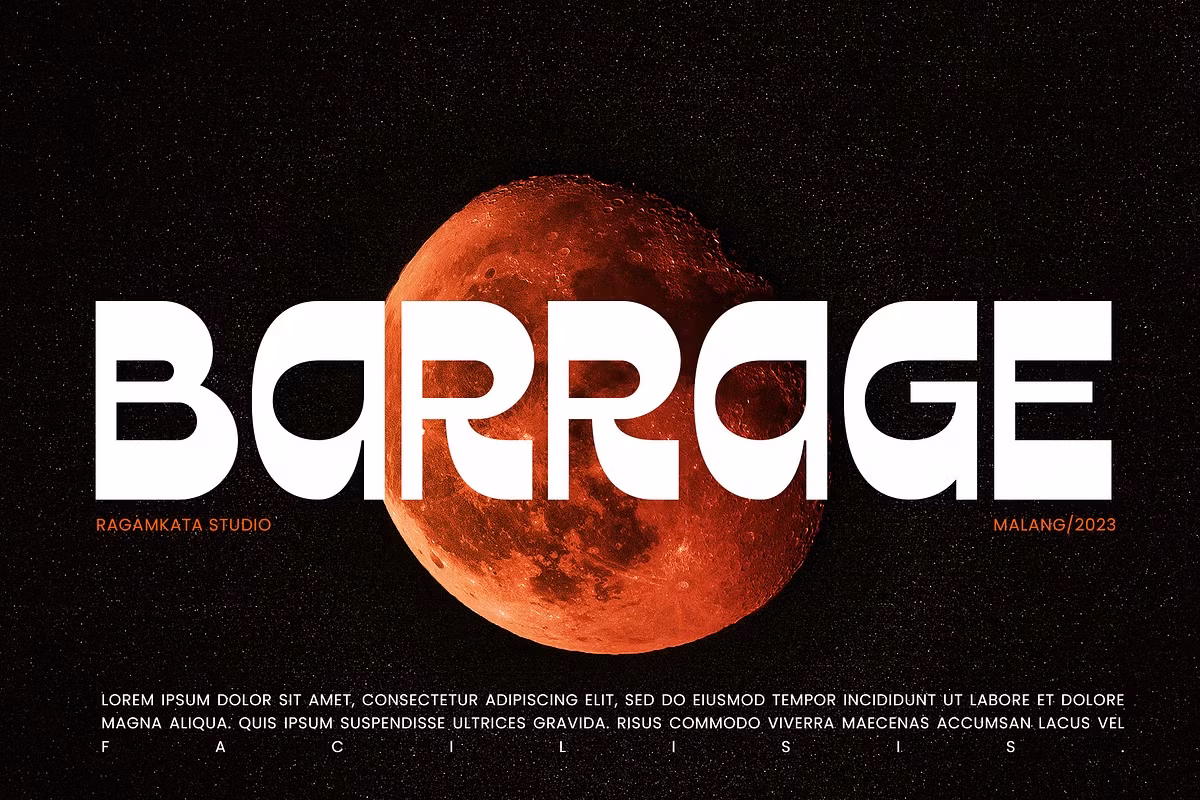
Barrage - Display Font Free Download is a bold and commanding typeface designed to make a statement. With its strong lines, geometric structure, and edgy character, this font is perfect for poster headlines, sports branding, album covers, and any creative project that needs high-impact typography.
Barrage - Display Font Free Download delivers a modern, aggressive style that grabs attention and holds it. Whether you’re working on streetwear branding, action-themed graphics, or promotional materials, this font brings power and presence to the table. Download it now and let Barrage amplify the energy of your next design.